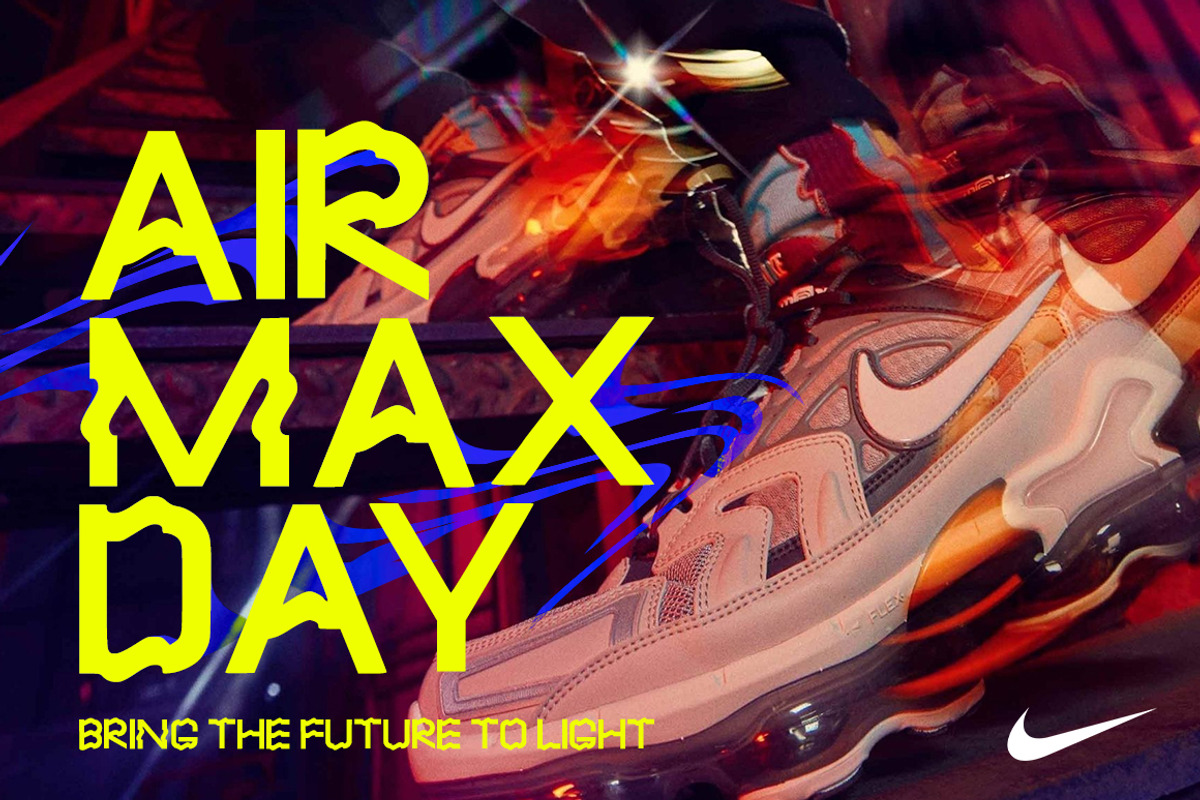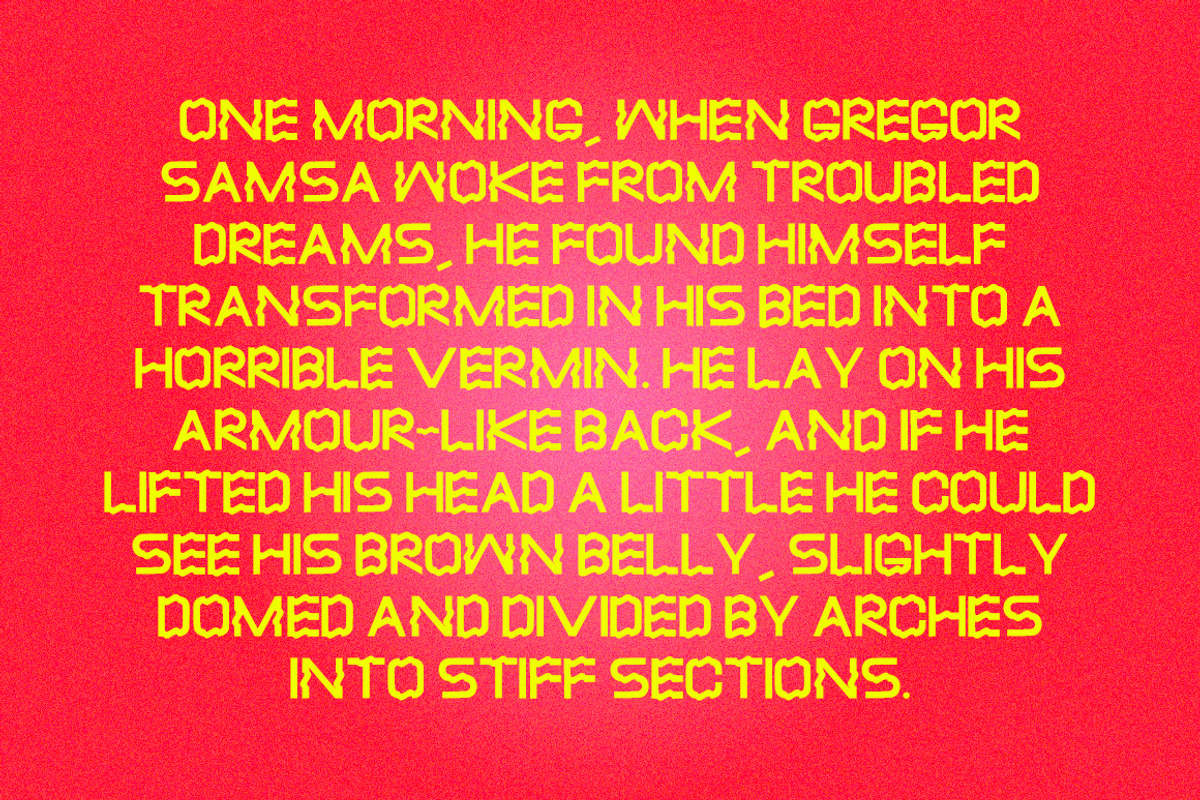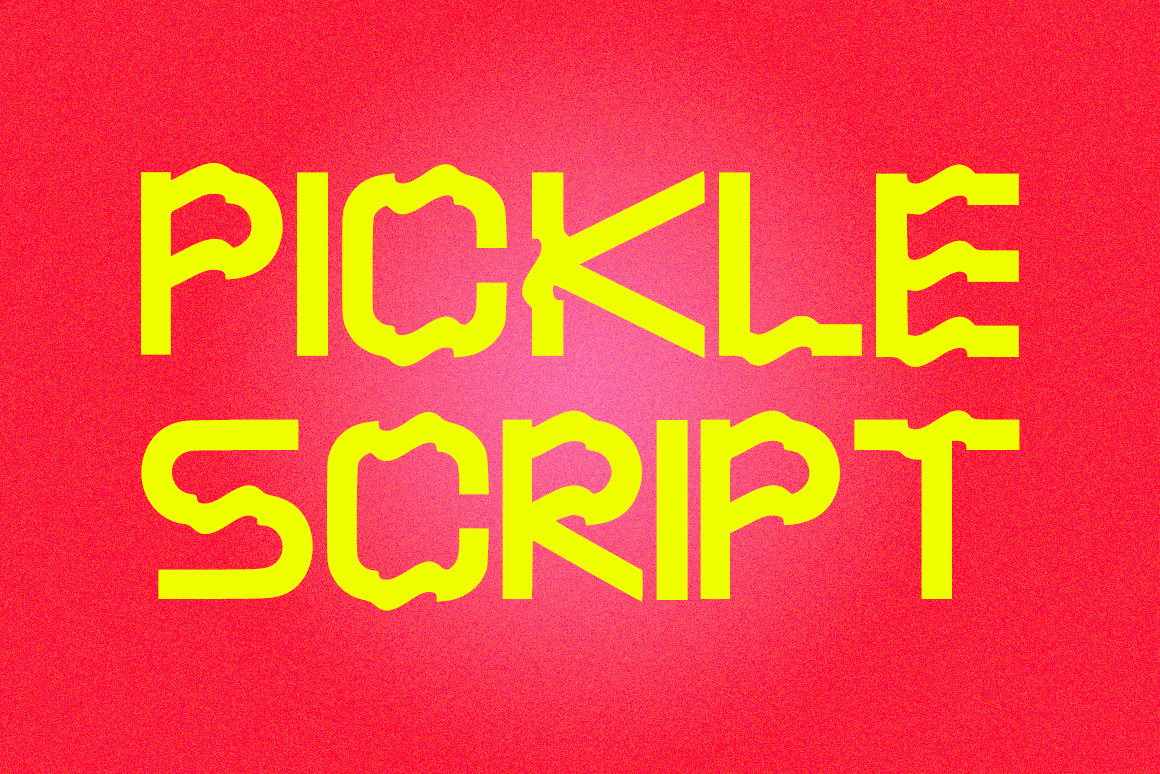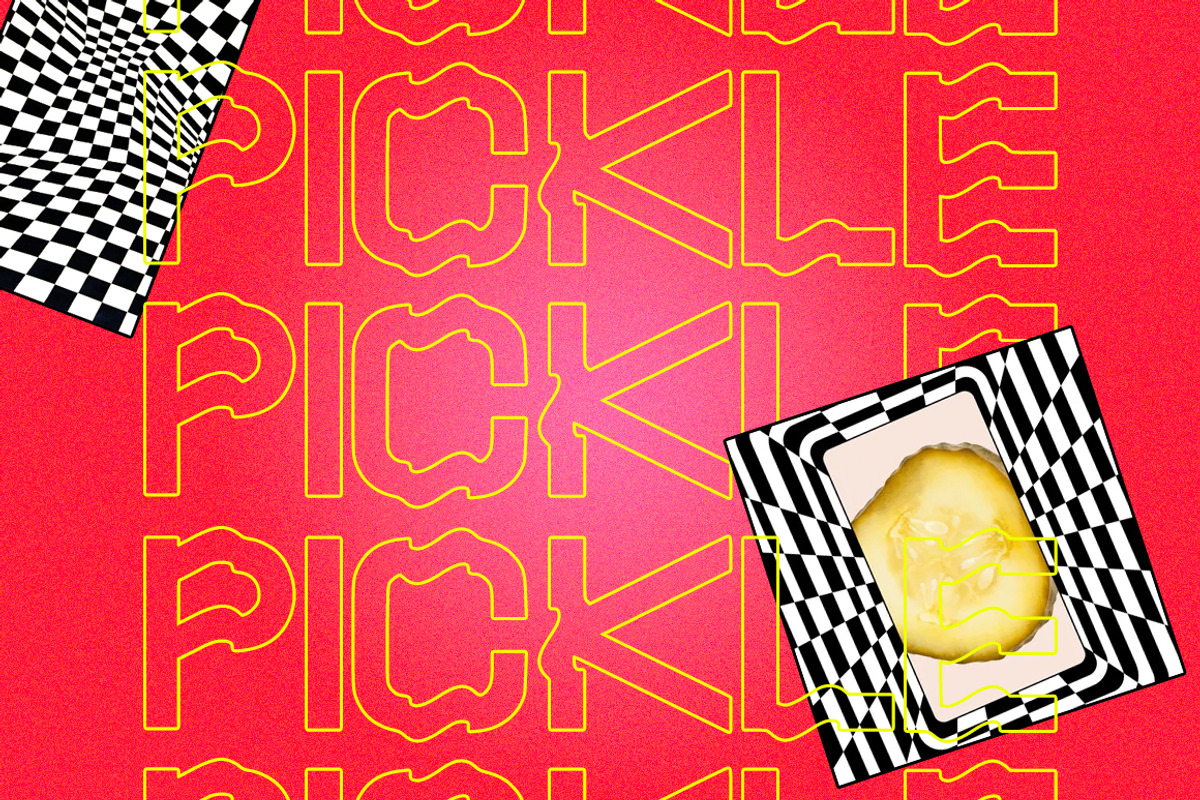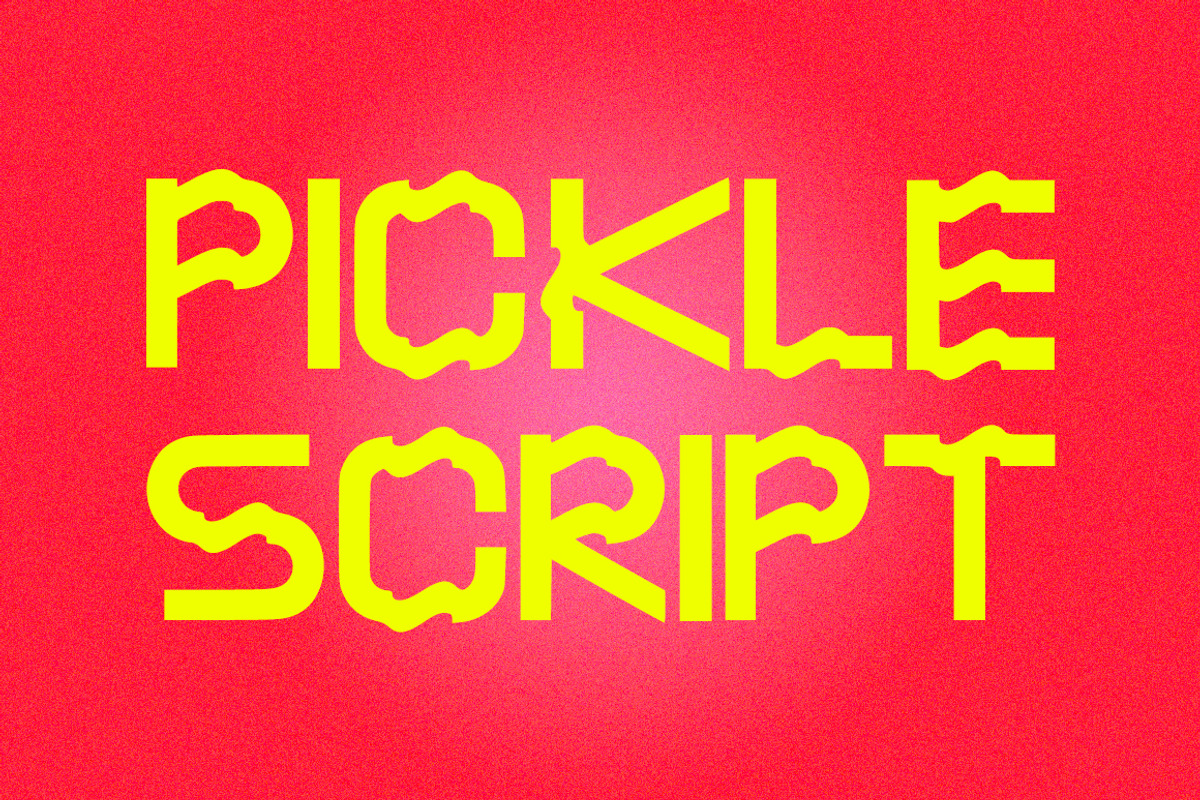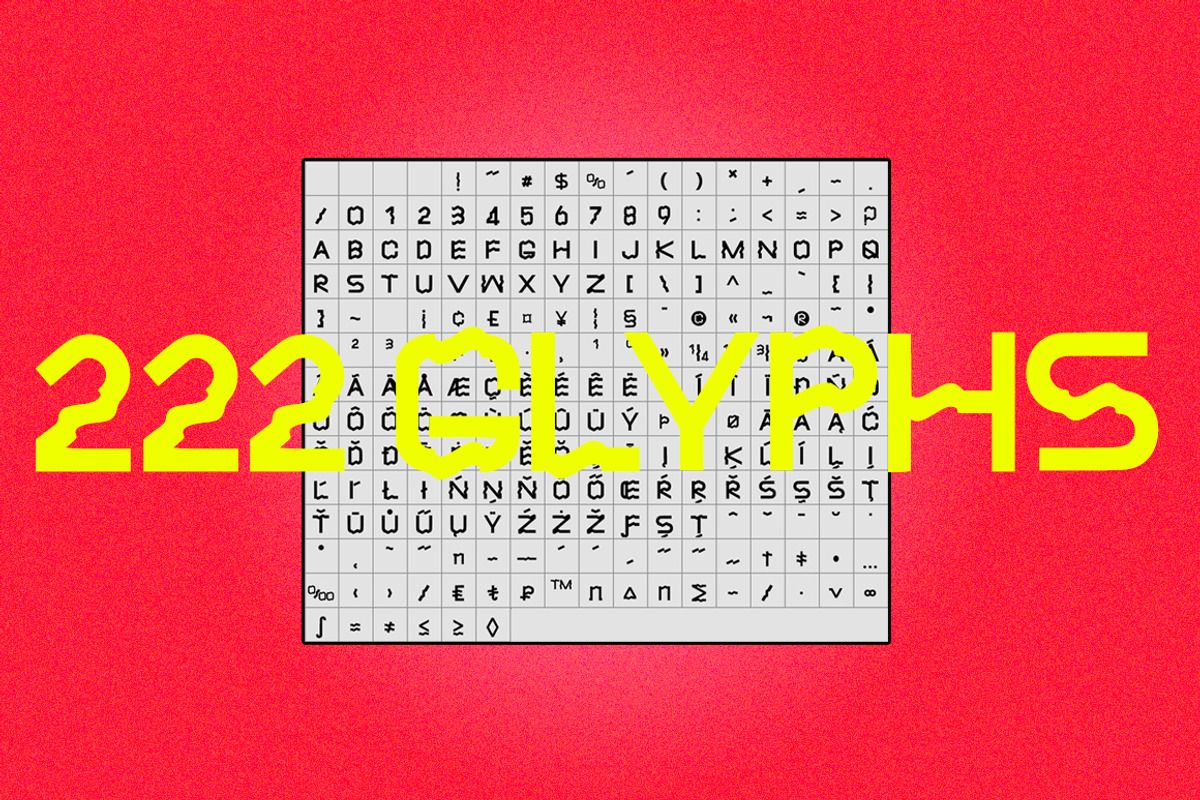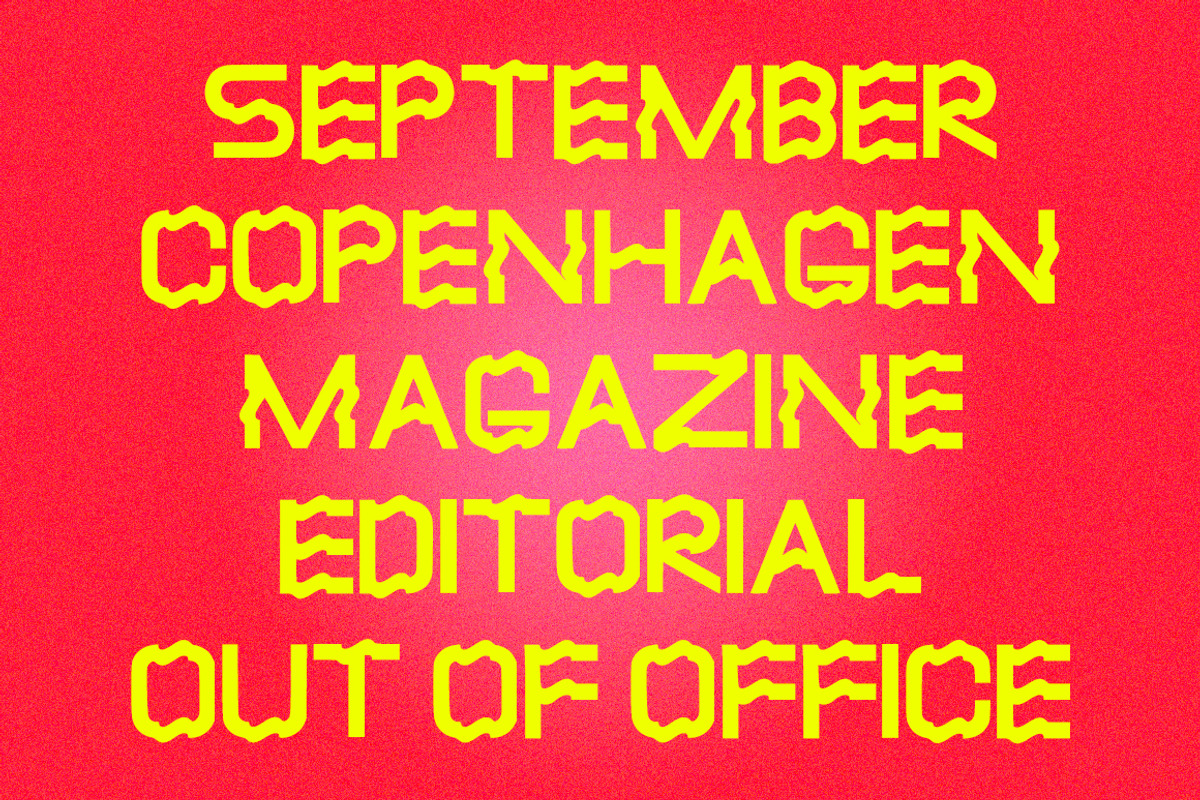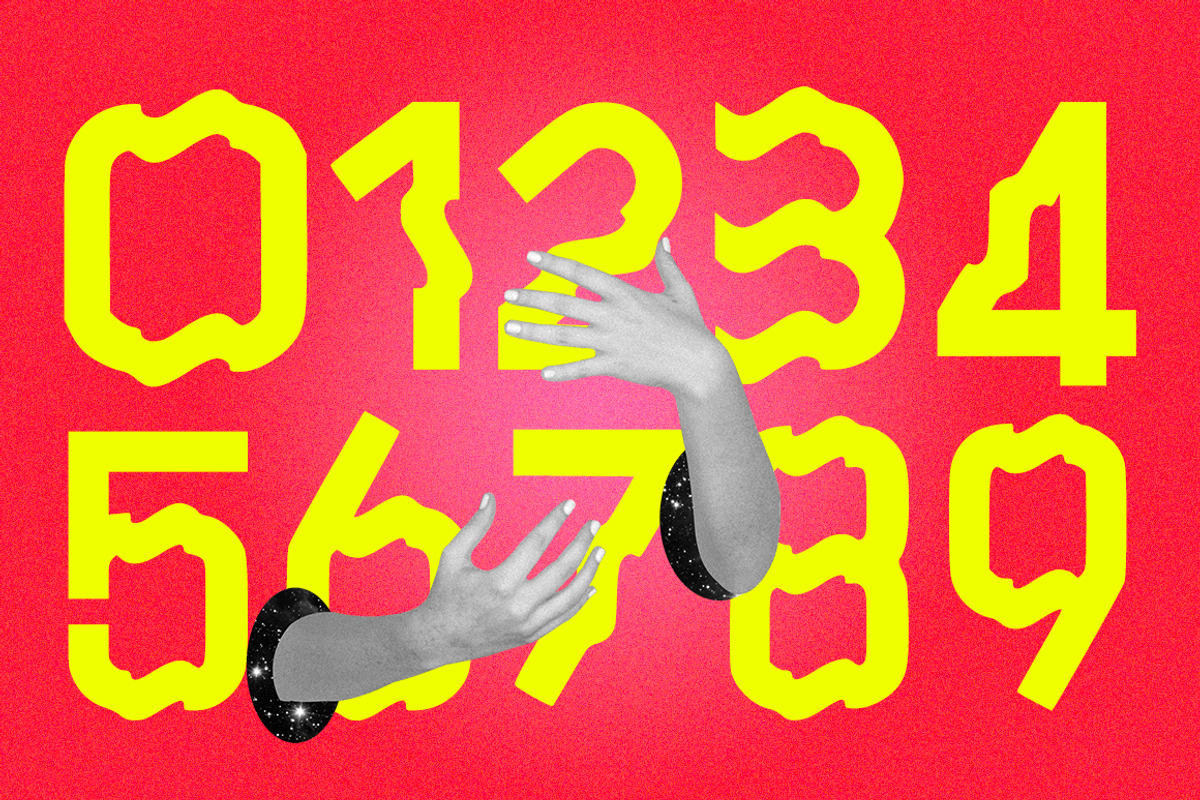
Pickle Script Font
Pickle is an experimental font. This font equipped with several features such as ligatures and multi-language support that makes it easier for you to design. This font is perfect for your design needs such as poster design, logo design, branding, social media design, book, magazine, etc.